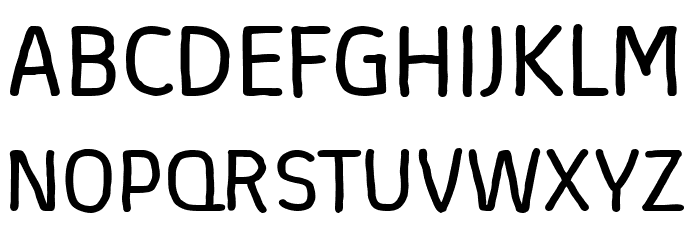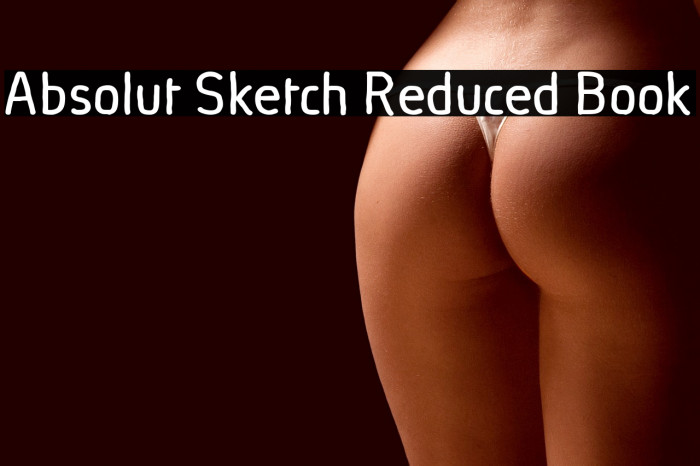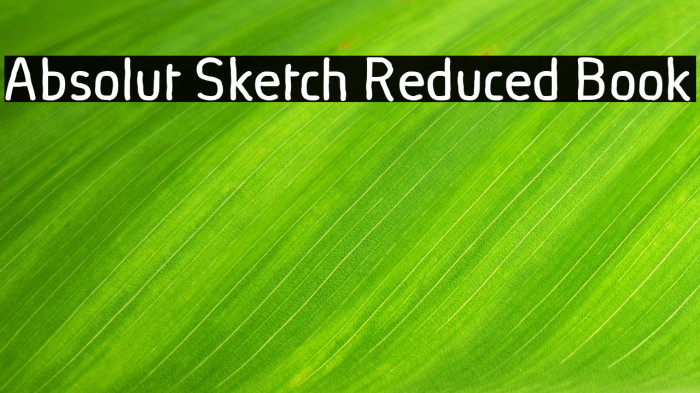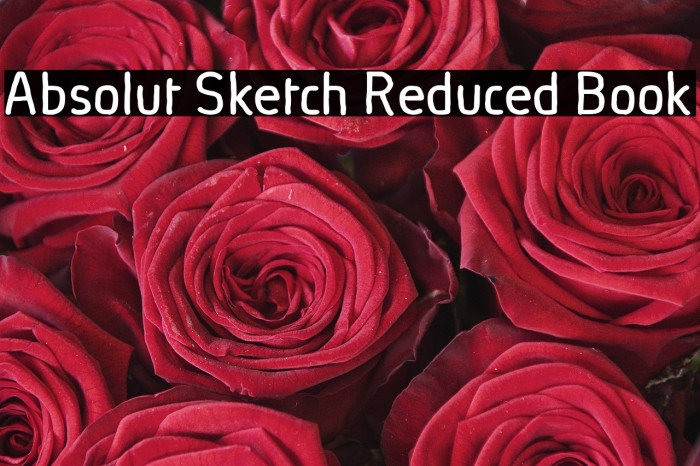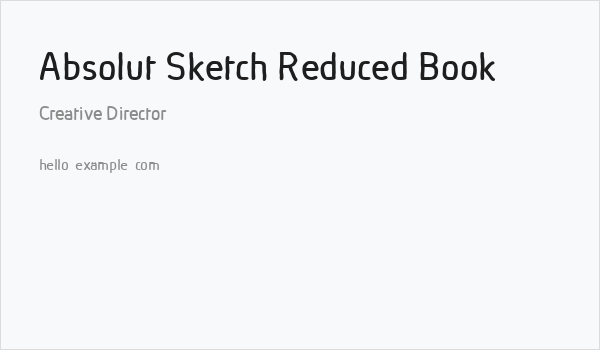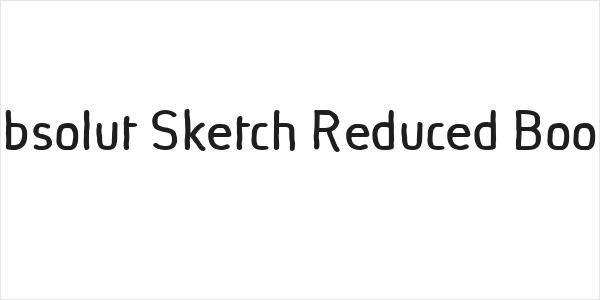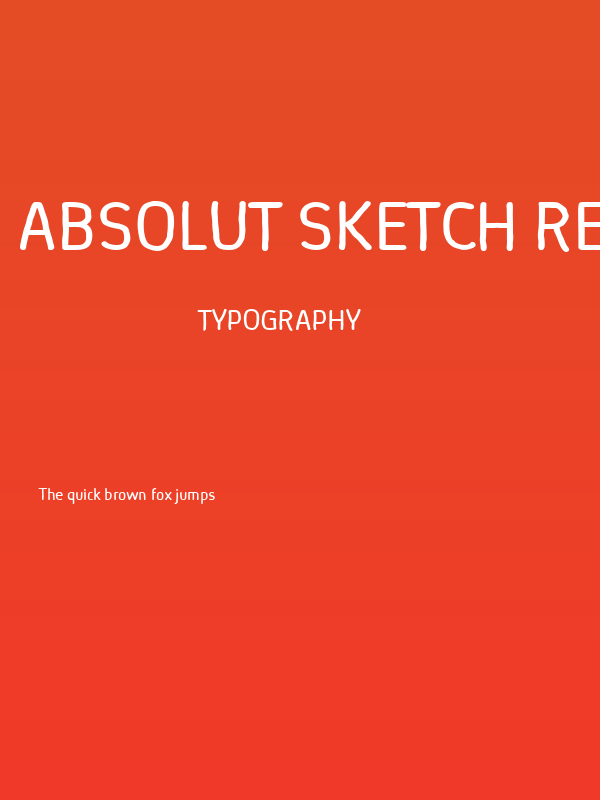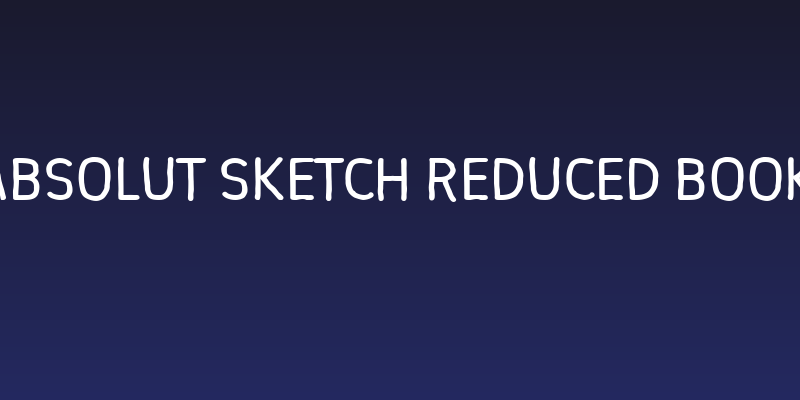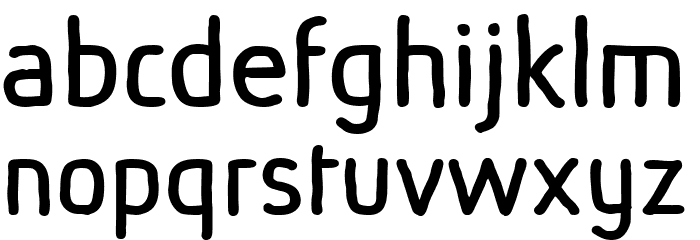
Absolut Sketch Reduced Book Font
Absolut Sketch Reduced Book Description
This font features a hand-drawn, sketch-like appearance that gives it a playful and informal feel. The characters are slightly irregular, with varying stroke widths that add to its casual charm. The uppercase letters are bold and prominent, while the lowercase letters maintain a consistent style with rounded edges and a friendly demeanor. The numbers and special characters follow the same aesthetic, ensuring a cohesive look across all text. This font's unique style makes it stand out, perfect for projects that require a touch of creativity and personality.
| Proposed Projects | Ideal for children's books, creative posters, casual branding, and artistic invitations. |